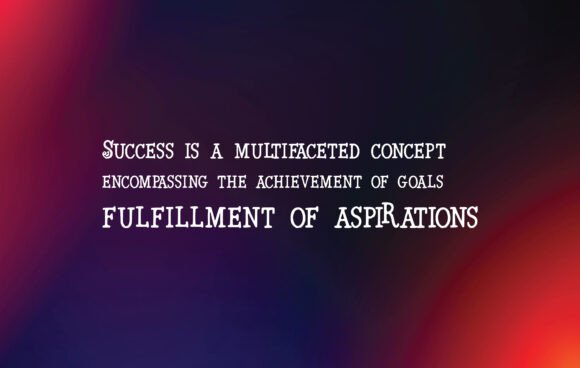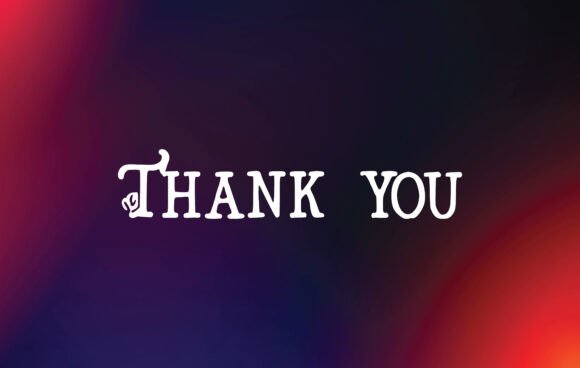
The Ensley Font: A Creative Game-Changer for Designers and Crafters
I’ll never forget the moment I stumbled upon the Ensley font while working on a branding project for a small business. I had been searching for the perfect handwritten font to capture the essence of their eco-friendly products, but nothing seemed quite right. That was until I saw Ensley – a lovely and beautiful handwritten font that instantly caught my eye. Its unique charm and character took my creative ideas to the highest level, and I knew I had found the perfect fit.
An Honest Review of Ensley Font
What I Love About Ensley ✨
- 💫 Unique and elegant handwritten style that’s perfect for branding and logos
- 🎨 Versatile and adaptable to various design projects, from digital to print
- 🤩 Beautifully crafted with attention to detail, making it a joy to work with
- ⚠️ Some users may find the font a tad too ornate for very casual or playful projects
- ⚠️ Limited availability of certain special characters or glyphs
The Story Behind Ensley Font
The Ensley font was designed with the intention of creating a beautiful, elegant handwritten font that captures the essence of creative expression. Inspired by classic calligraphy and modern digital design, Ensley is the perfect blend of traditional and contemporary styles.
| Font Name | Ensley Font |
| Author | moonlight craft |
| What type of projects is Ensley best suited for? | Ensley is perfect for branding, logos, quotes, and any project that requires a touch of elegance and sophistication. |
| Does Ensley support OpenType features? | Yes, Ensley supports OpenType features, including ligatures, stylistic alternates, and glyphs. |